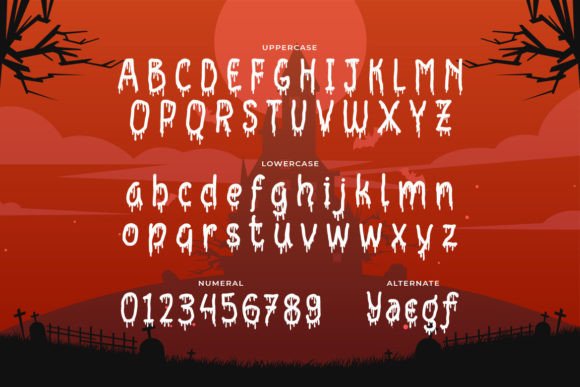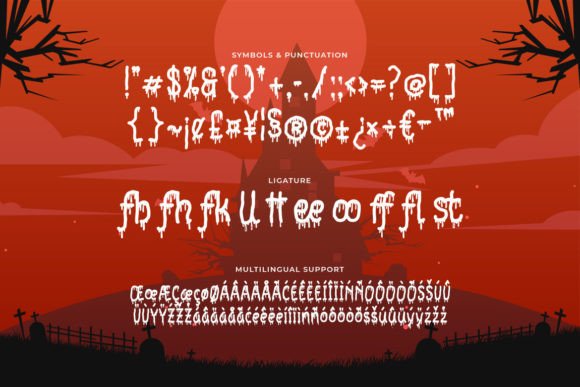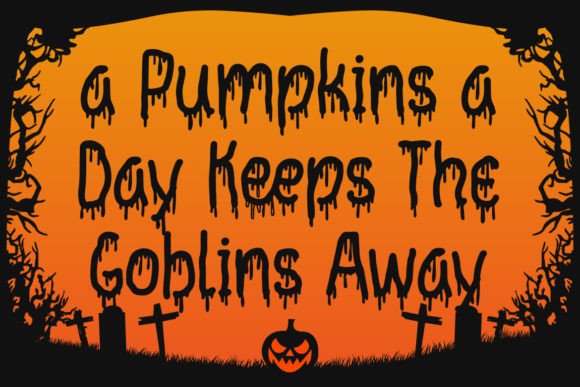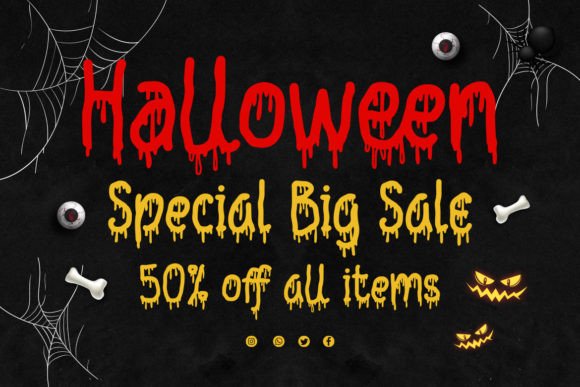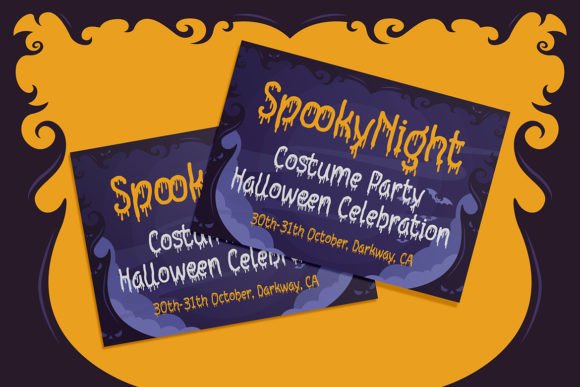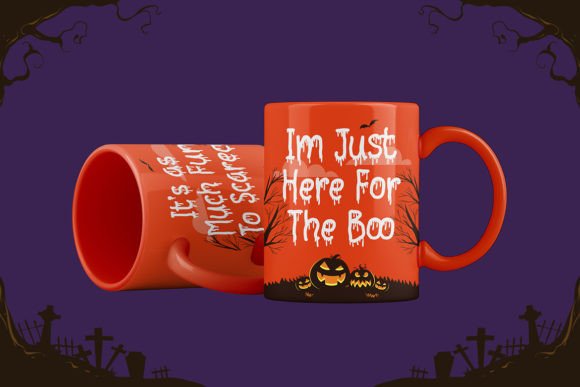
Unleash the Horror with Bloodlust Font: A Spine-Tingling Typeface for Designers
Are you looking for a font that will send shivers down the spines of your audience? Look no further than Bloodlust, a horror and scary font designed to evoke a sense of terror and fear. With its chilling design and ominous tone, Bloodlust is the perfect choice for projects that require a touch of horror and macabre. In this article, we’ll introduce you to the Bloodlust font, its features, and the various ways you can use it to create spine-tingling designs.
What is Bloodlust Font?
Bloodlust is a unique and terrifying font that is sure to grab the attention of your audience. Its design is inspired by the darker side of life, with twisted and gothic elements that will make your designs stand out. The font features a distressed and worn look, giving it a sense of age and decay that adds to its eerie atmosphere. Whether you’re designing a book cover, poster, or branding materials, Bloodlust is the perfect choice for creating a sense of tension and fear.
Key Features of Bloodlust Font
Bloodlust font comes with a range of features that make it perfect for horror and terror-themed designs. Some of its key features include:
- Chilling Design: Bloodlust features a unique and terrifying design that is sure to evoke a sense of fear and terror.
- Versatile: The font is versatile and can be used for a variety of projects, including book covers, posters, branding, packaging, logos, and more.
- Ominous and Macabre: Bloodlust has an ominous and macabre design that makes it perfect for creating a spine-tingling atmosphere.
- Distressed and Worn: The font features a distressed and worn look, giving it a sense of age and decay.
How to Use Bloodlust Font
Bloodlust font is perfect for designers and crafters who want to create horror and terror-themed designs. Here are some ways you can use Bloodlust:
- Book Covers: Use Bloodlust to create eye-catching book covers for horror and thriller novels.
- Posters: Create spine-tingling posters for horror movies, haunted houses, or Halloween events.
- Branding: Use Bloodlust to create a terrifying brand identity for your business, including logos, packaging, and marketing materials.
- Logos: Create a terrifying logo for your business or project using Bloodlust font.
- Crafting: Use Bloodlust to create spooky and eerie crafts, such as Halloween decorations, signs, and cards.
Why Choose Bloodlust Font?
There are many fonts available that claim to be horror and terror-themed, but Bloodlust stands out from the rest. Here are some reasons why you should choose Bloodlust:
- Unique Design: Bloodlust features a unique and terrifying design that is sure to grab the attention of your audience.
- High-Quality: The font is of high quality, with clean and crisp lines that will look great in any design.
If you’re looking for a font that will add a touch of horror and terror to your designs, look no further than Bloodlust. With its chilling design, ominous tone, and versatile features, Bloodlust is the perfect choice for designers and crafters who want to create spine-tingling designs. Whether you’re designing a book cover, poster, or branding materials, Bloodlust is sure to grab the attention of your audience and leave a lasting impression.